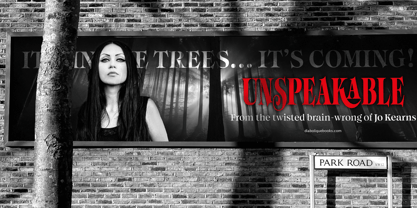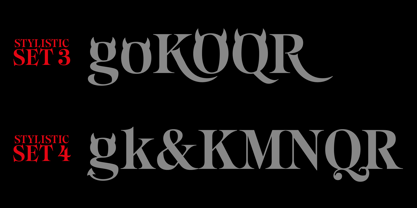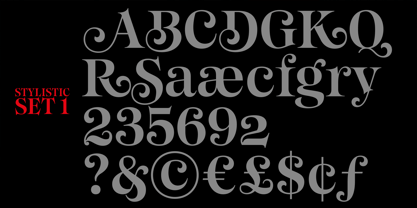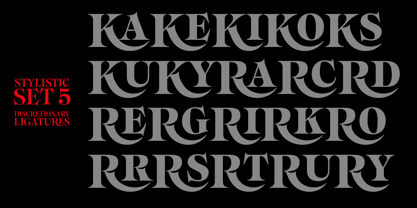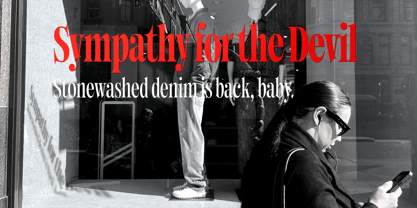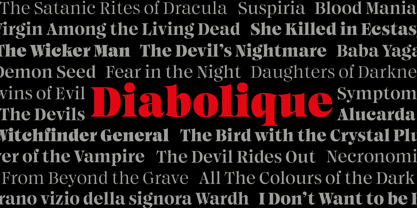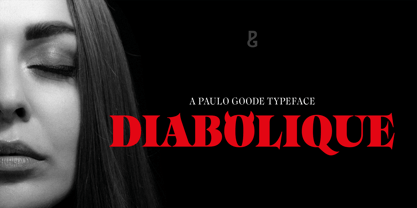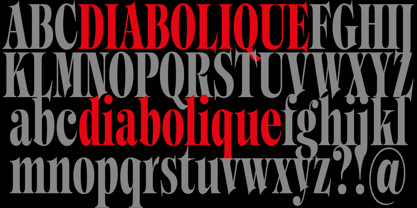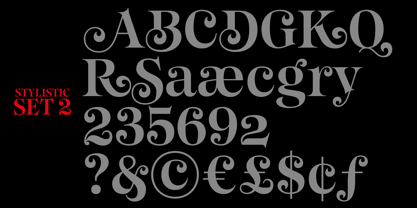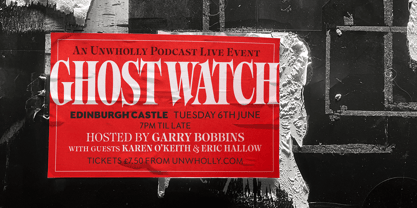
Diabolique
by Paulo Goode
The Diabolique Font Family was designed by Paulo Goode and published by Paulo Goode. Diabolique contains 12 styles and family package options.
Diabolique is a 12-font display typeface that aims to capture the spirit of the dark side of life—fonts that are perfect for amplifying the tone of clandestine, macabre, and horrifying subjects.
Ed Benguiat’s Tiffany (1973) along with my own Eschaton (2024) are the main influences for Diabolique. This type family combines incisive serifs, ball terminals and elegant curves that swerve abruptly into razor-sharp corners. This heightens a sense of unease, and, with stylistic sets activated, there are even more ways to deliver a chilling message. These qualities give Diabolique a unique aesthetic that will undoubtedly give your titles, headlines, and logotypes a distinctive appeal.
Special OpenType features include over 60 alternates that will make each word resonate beautifully when used in titling and branding situations. Small Caps are also included (along with their matching diacritics and alternates) – these are designed to harmonise with regular lowercase forms making unIcase-style typography a cinch. All-cap Discretionary Ligatures are also available to add that extra touch of finesse to your typographic creations.
There are 6 weights across 2 widths, ranging from a delicate Regular to an imposing Black. Diabolique has an extensive character set that covers all Latin European languages.
KEY FEATURES
• Six Weights
• Two Widths
• Small Caps
• 60+ Alternates
• 900+ Glyphs